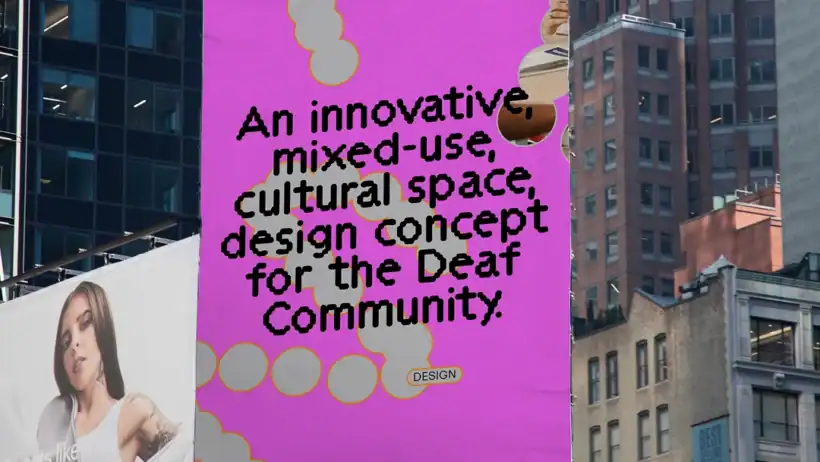
Design That Listens: Authentic Identity in Motion
As an expert branding curator, I urge designers to read this brilliant case study. Templo transforms sign language gestures into a visual alphabet. Motion capture becomes a source of letterform authenticity, not a gimmick. The result feels human, joyful, and intentionally imperfect. Colour choices reject worthy pastels, opting for hot pink and bright orange. That contrast makes the work sing across billboards, stickers, and social posts. The project refocuses the brief, centering the deaf community’s language and movement in every touchpoint.
This piece is a masterclass in empathetic process, not technical replication. It shows how listening yields design decisions that resonate. Expect practical considerations about scalability, and thoughtful reflections on craft. If you care about meaningful identity, read it for inspiration and strategic provocation.
Read this to learn how human data can inform distinctive identity work. The article offers visuals, quotes, and practical takeaways for makers. It will shift how you evaluate authenticity in branding briefs.
A must read for strategists, creatives, and champions of inclusive design, this piece challenges lazy assumptions and rewards curiosity. Bookmark it and apply its ideas. Share with your team. Read it today.